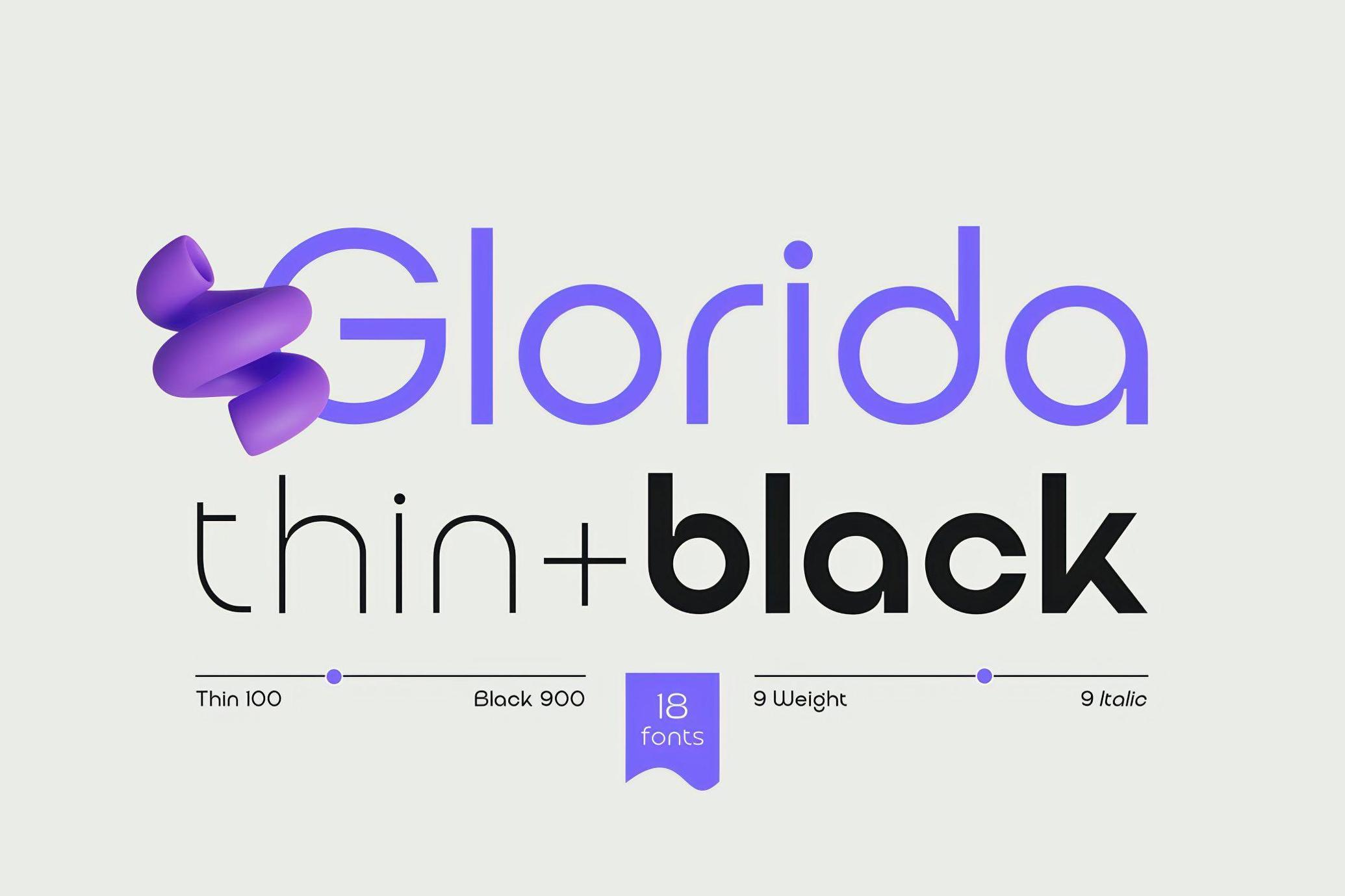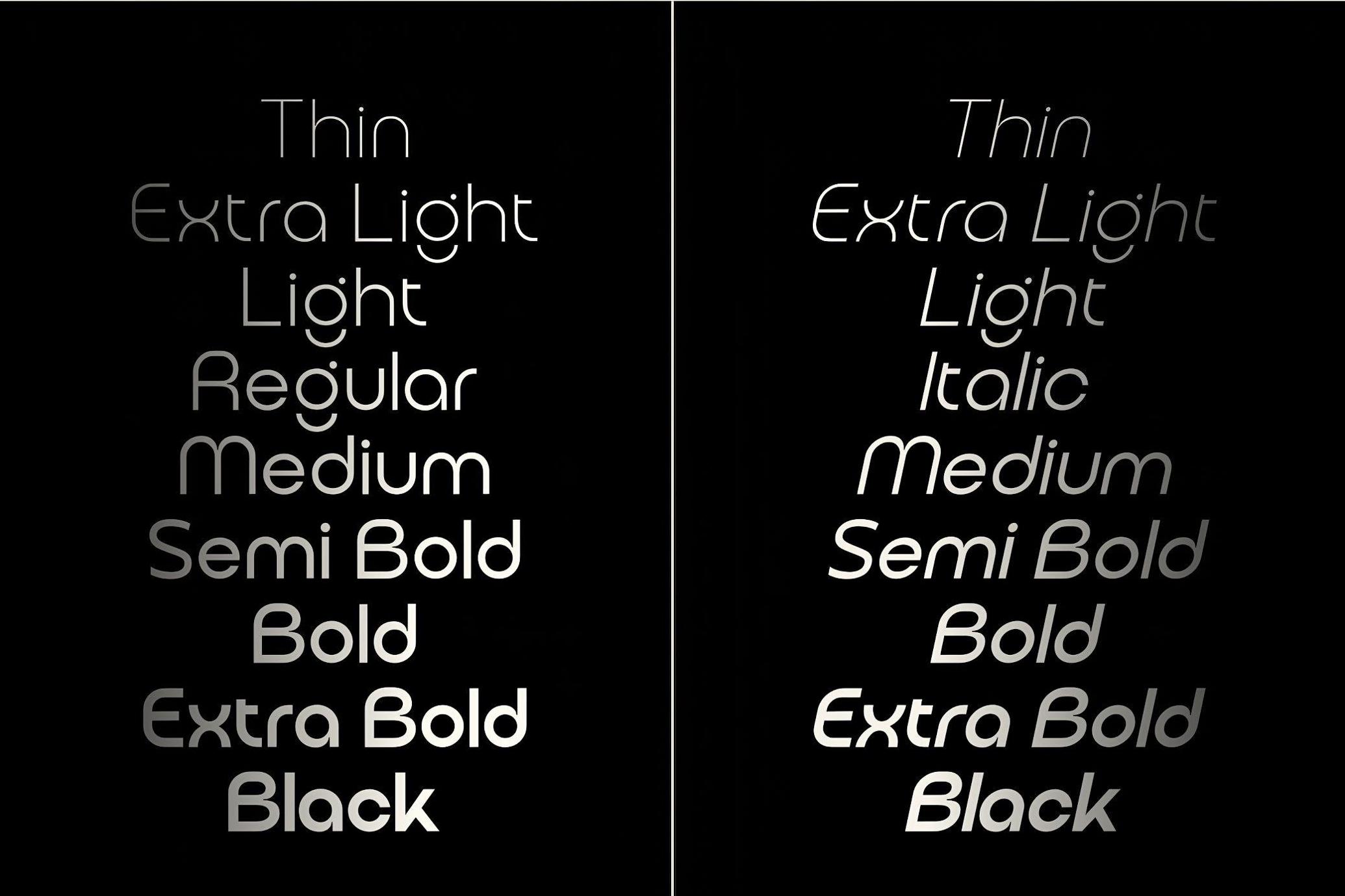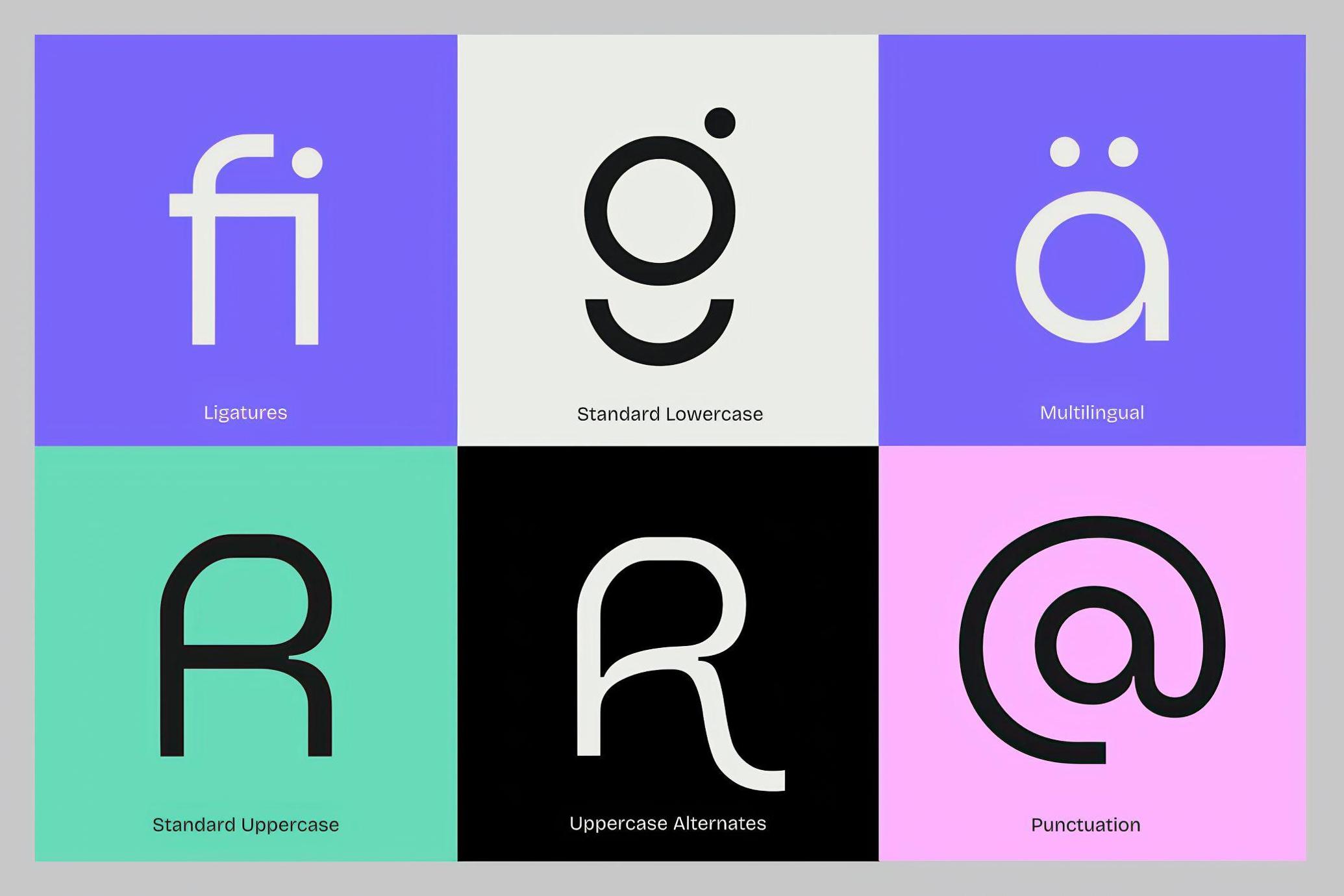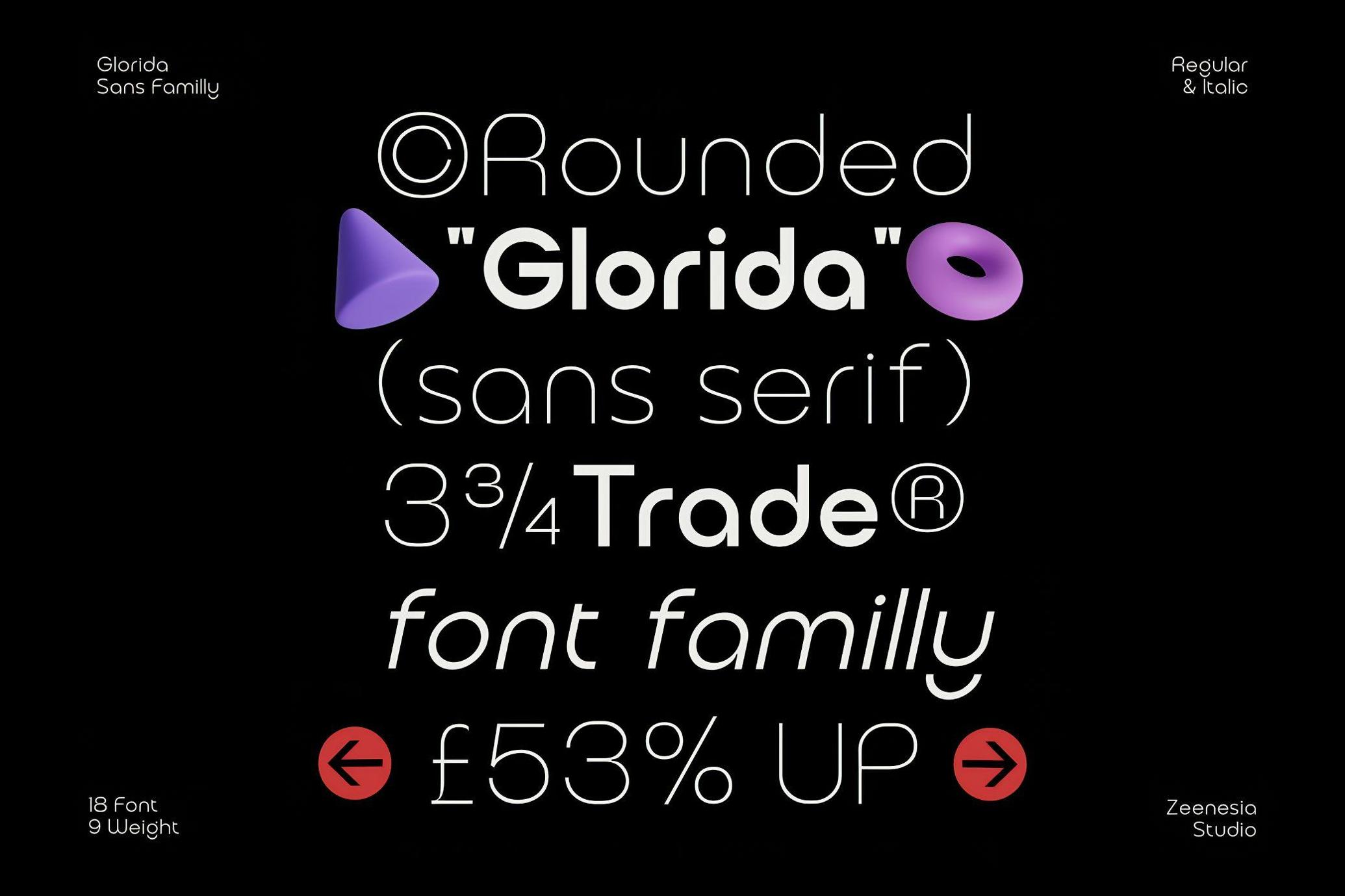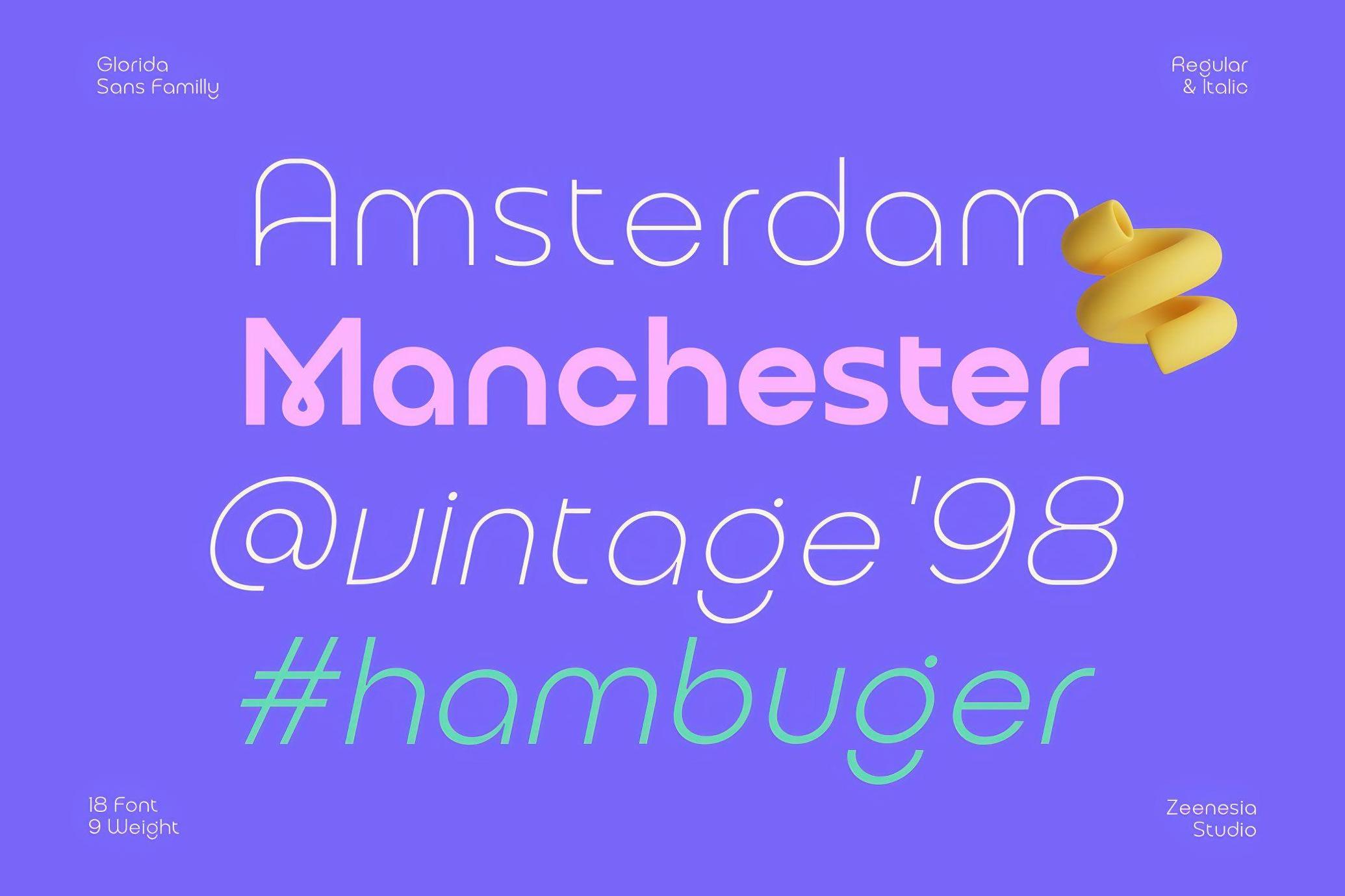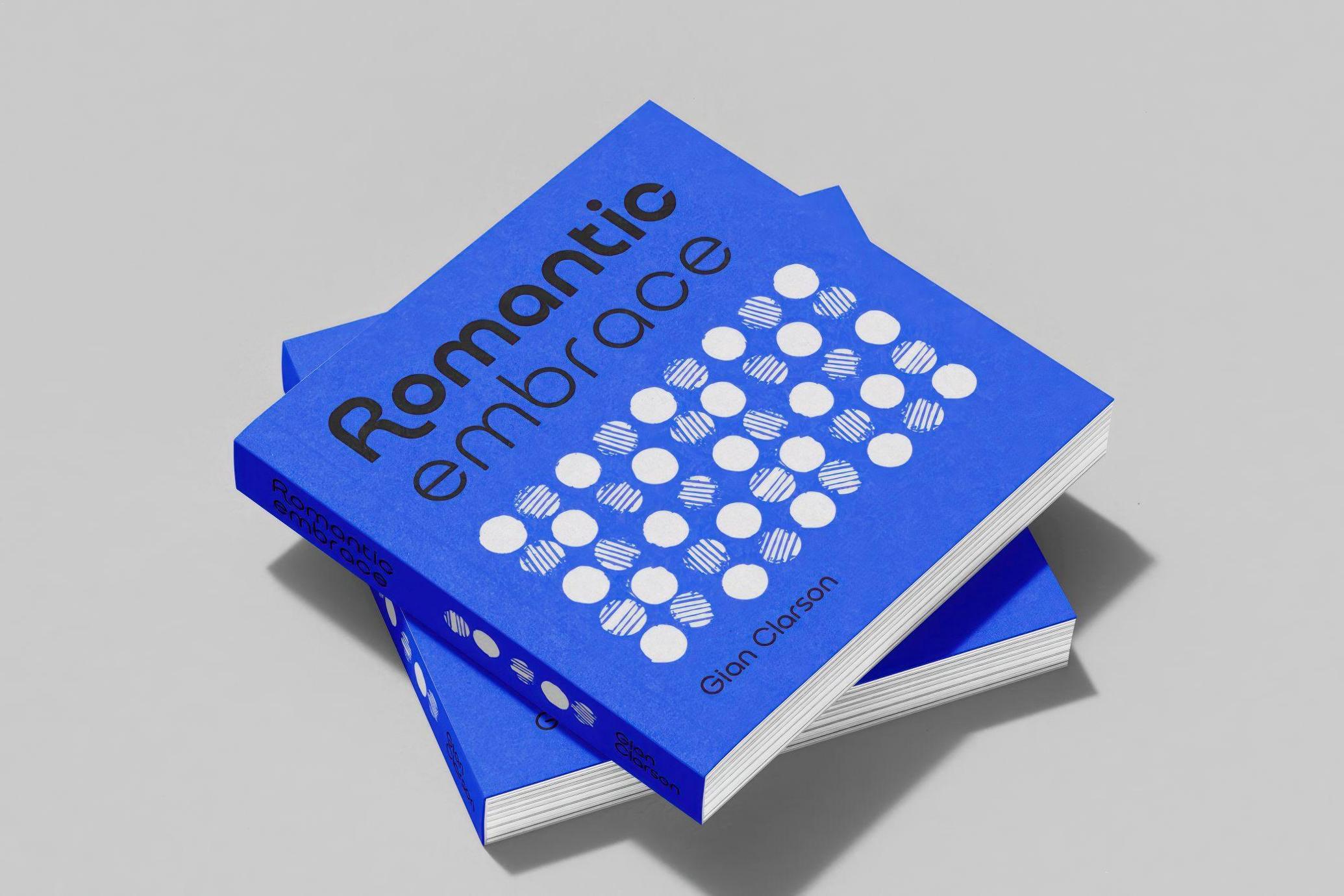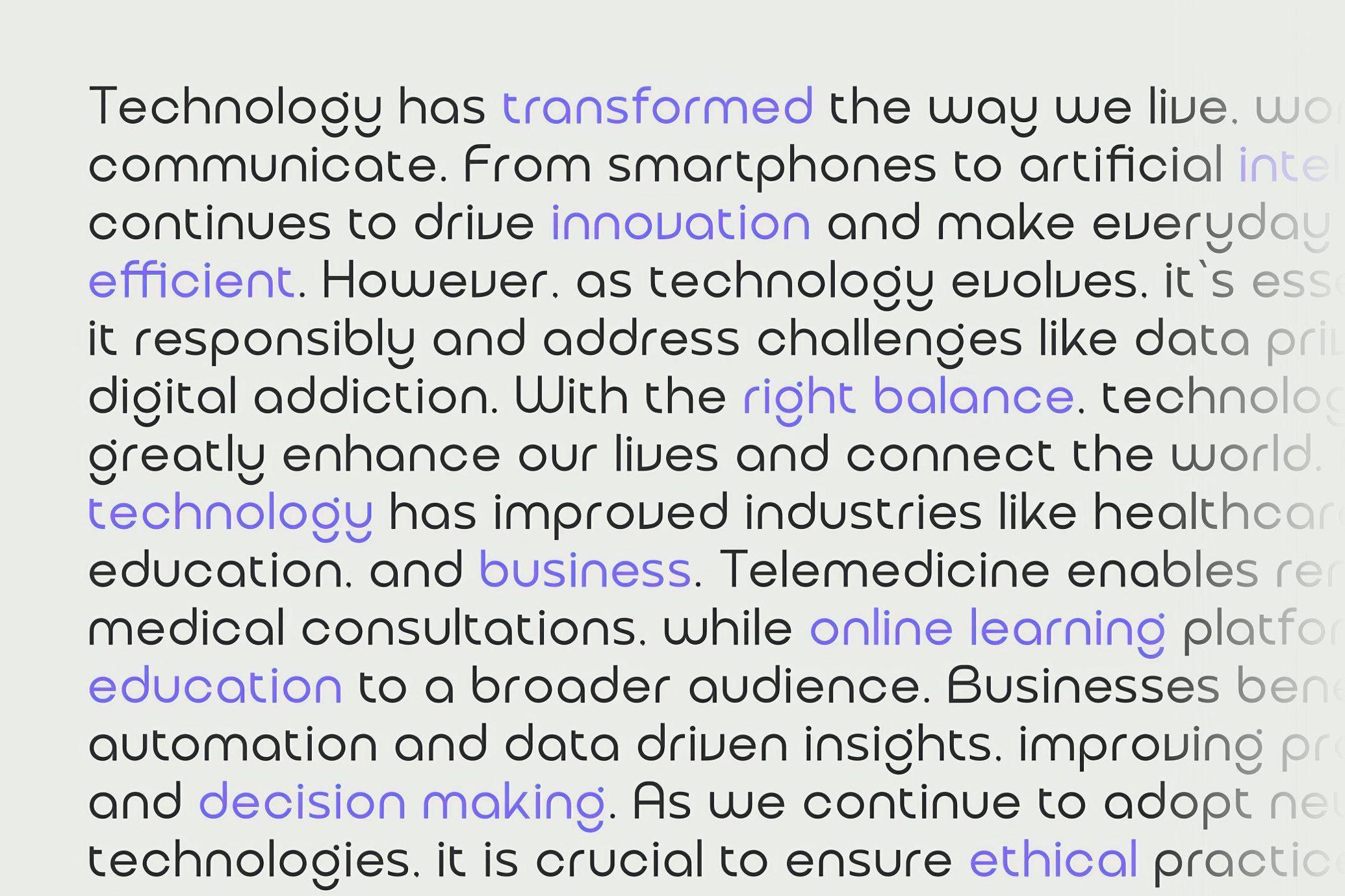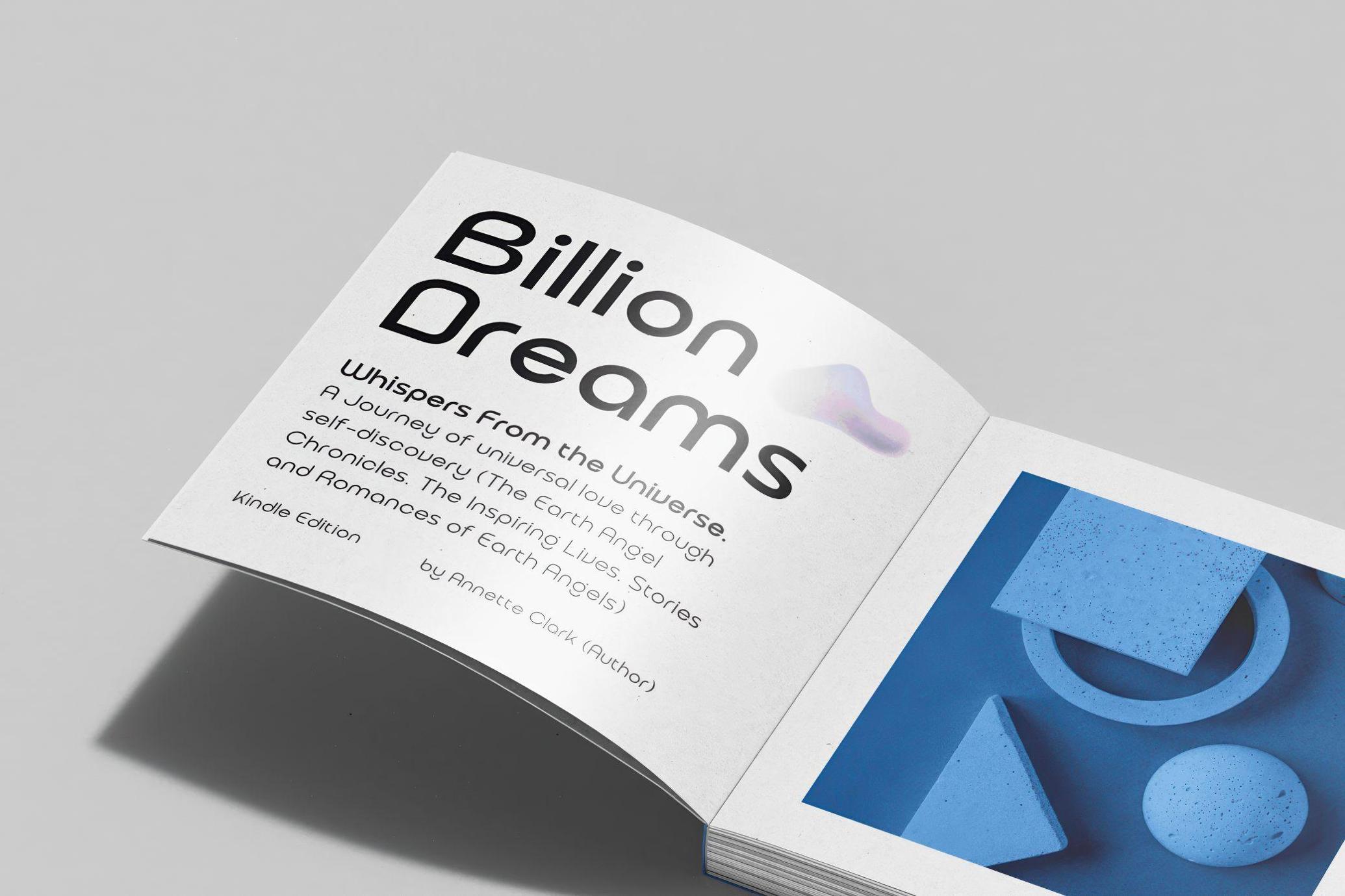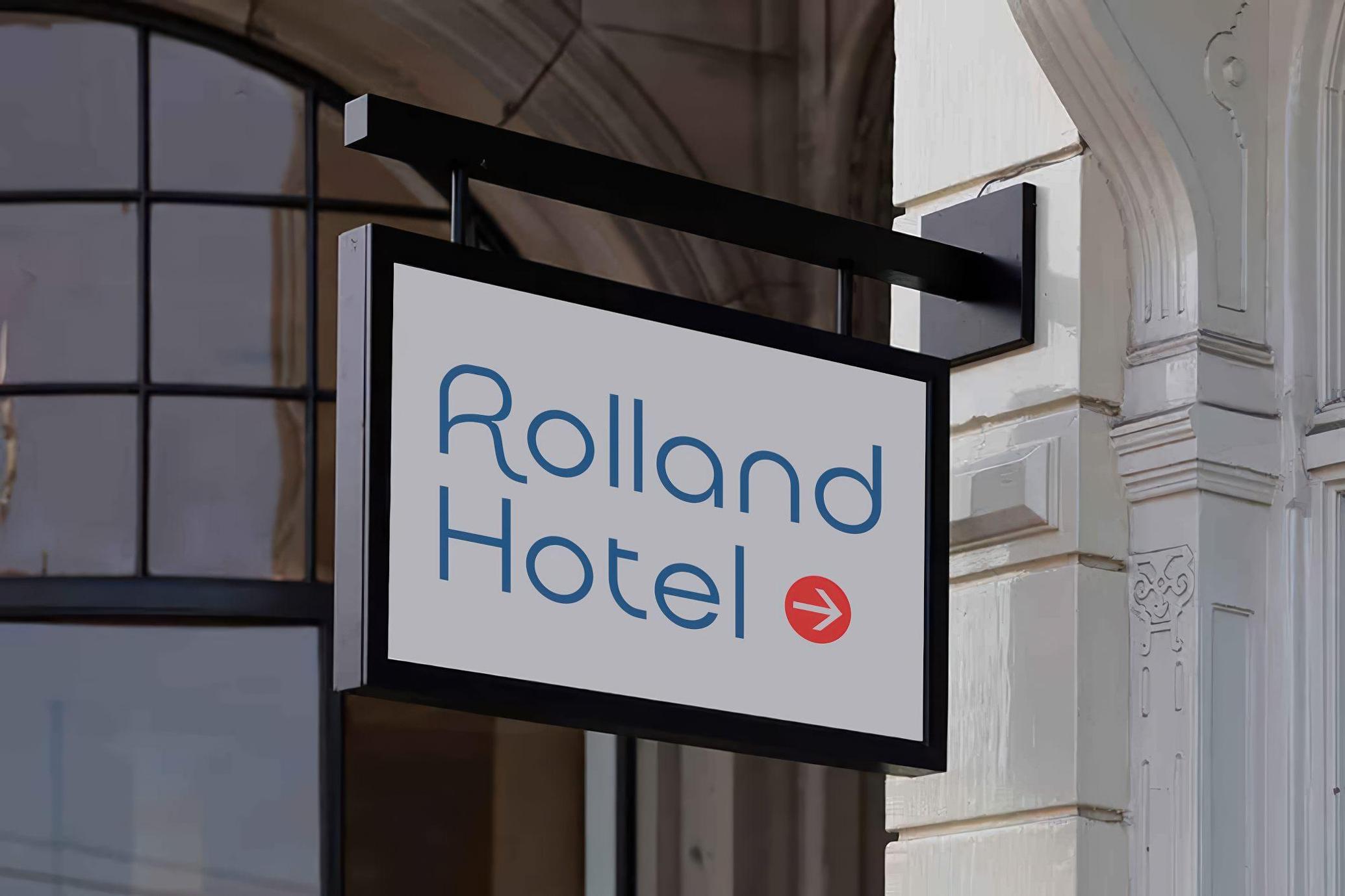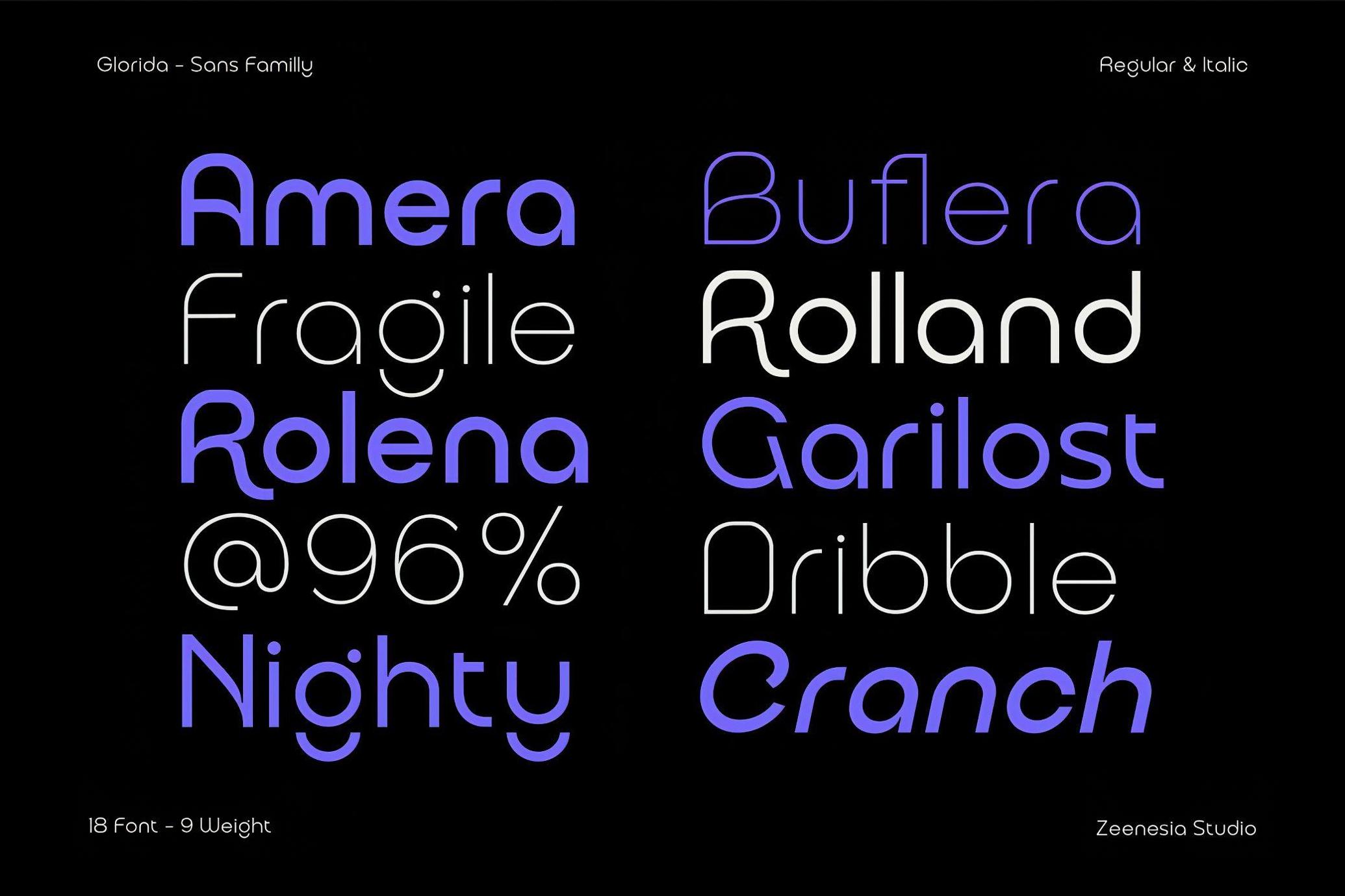
Glorida — Sans Serif Family
Glorida is a rounded sans with an easy elegance. It’s designed to feel equally at home in sleek interfaces, lifestyle branding, or editorial spreads. The smooth, sculptural curves give it a tactile quality, while the wide weight range (fromwhisper-thin to bold black) makes it a flexible tool for building hierarchy and contrast. Use it for wellness and tech startups, fashion lookbooks, packaging design, digital platforms, or signage that needs to feel quirky without losing clarity. Glorida’s voice is warm and contemporary, polished, but never cold.
The family provides 18 styles in total: 9 weights with matching italics. Every style features softly rounded terminals, consistent rhythm, and excellent legibility at both display and text sizes. The set of glyphs is amazingly versatile; it includes standard upper & lower case letters, upper case alternates, numerals, punctuation, ligatures, and full multilingual support.